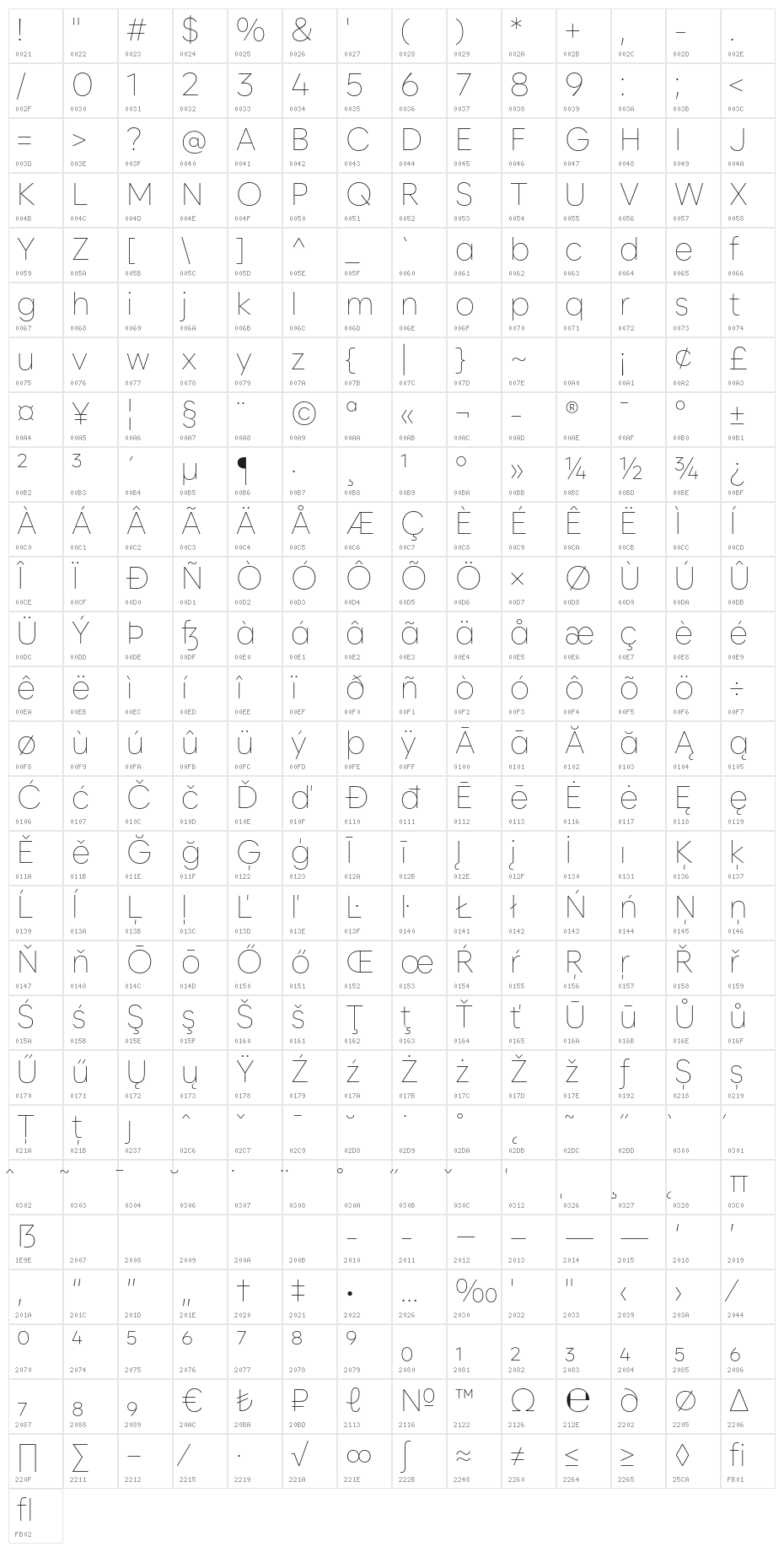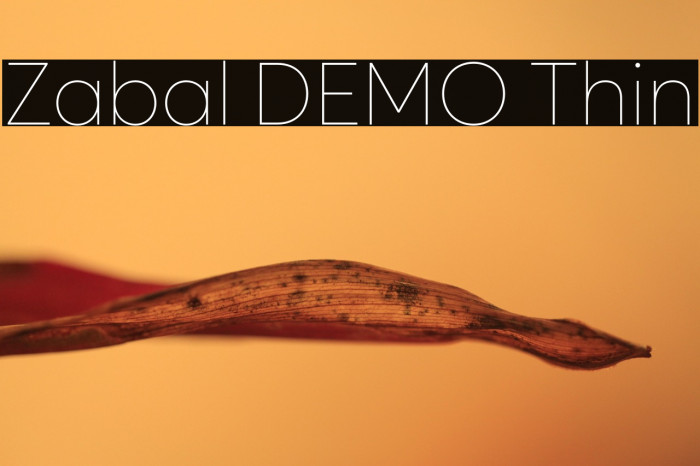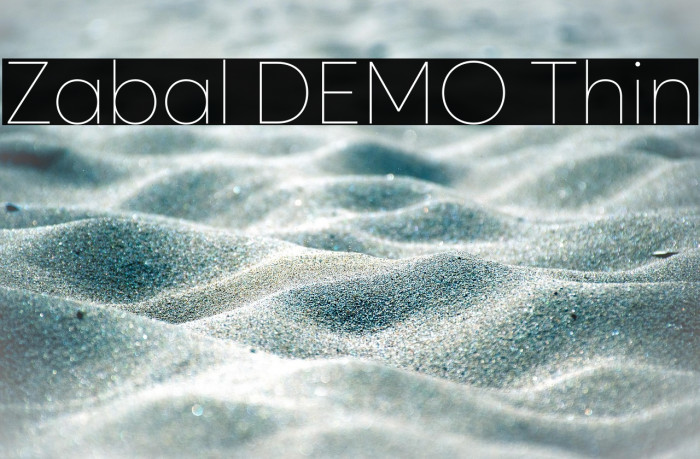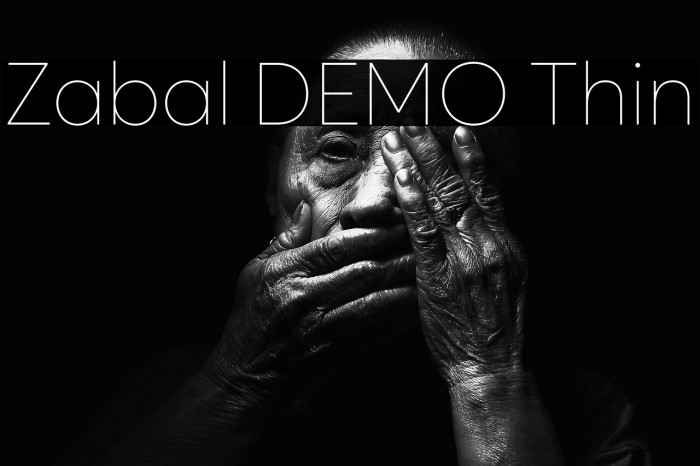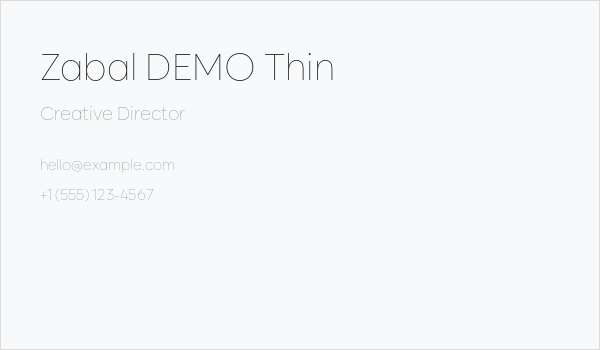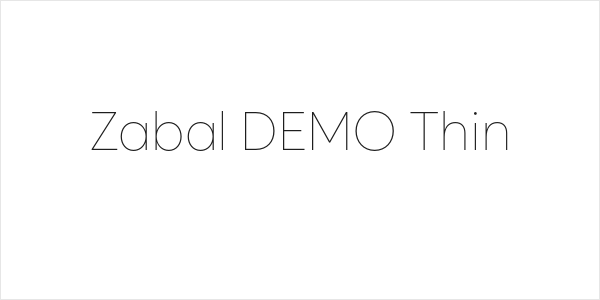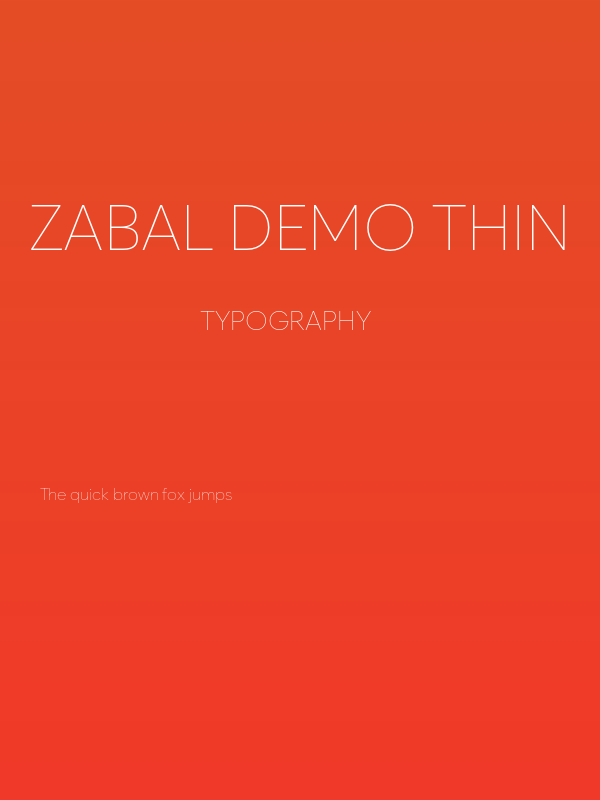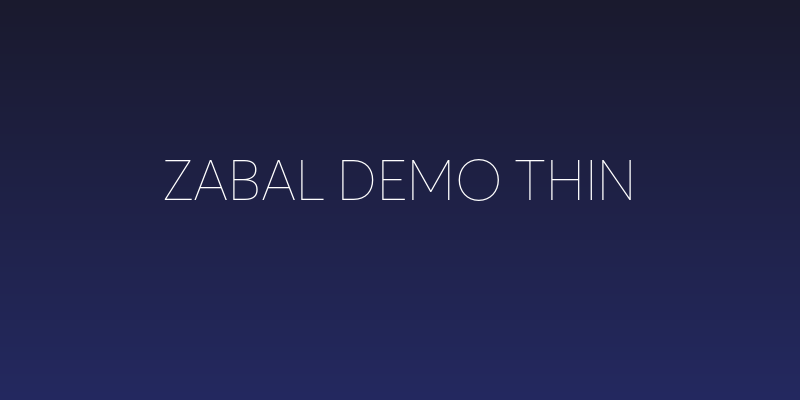
Zabal DEMO Thin Font
Zabal DEMO Thin Description
This font features a clean and minimalist design with thin, uniform strokes that convey a sense of modernity and elegance. The characters are well-proportioned, with a geometric influence that is evident in the consistent line thickness and precise curves. The uppercase and lowercase letters maintain a harmonious balance, making it suitable for a variety of design applications. The numerals and special characters are crafted with the same attention to detail, ensuring readability and aesthetic appeal. This font's simplicity and clarity make it an excellent choice for projects that require a contemporary and sophisticated look.
Proposed ProjectsIdeal for branding, editorial design, web design, and minimalist posters.